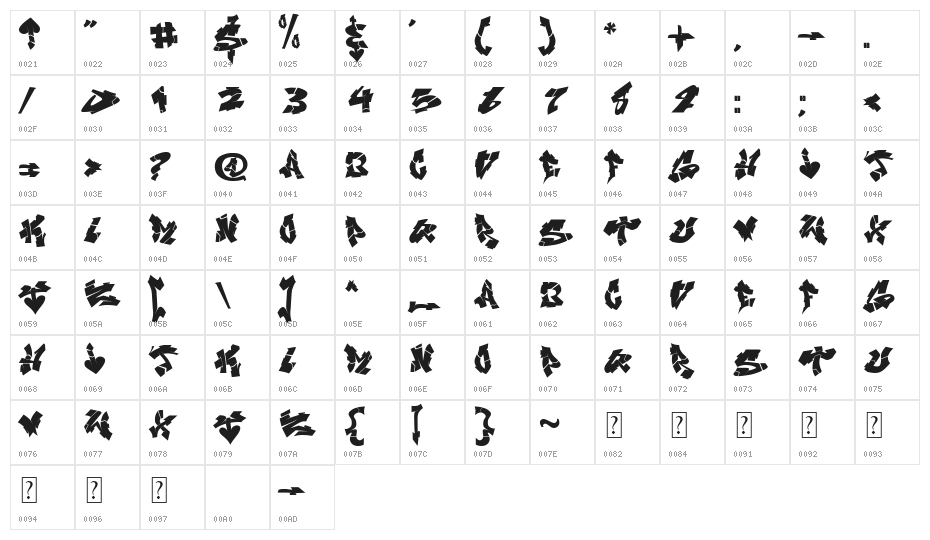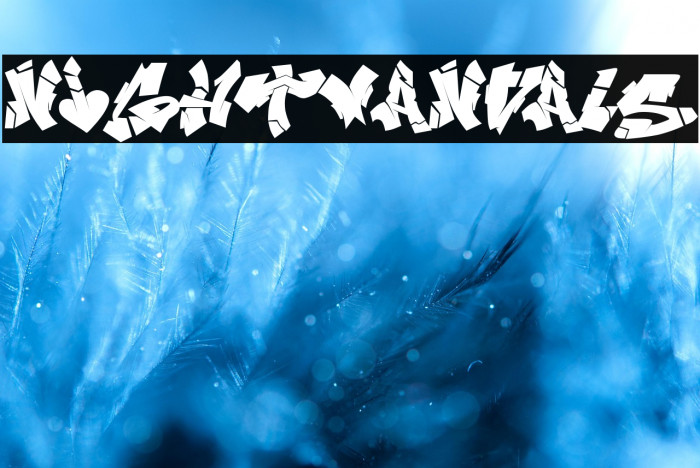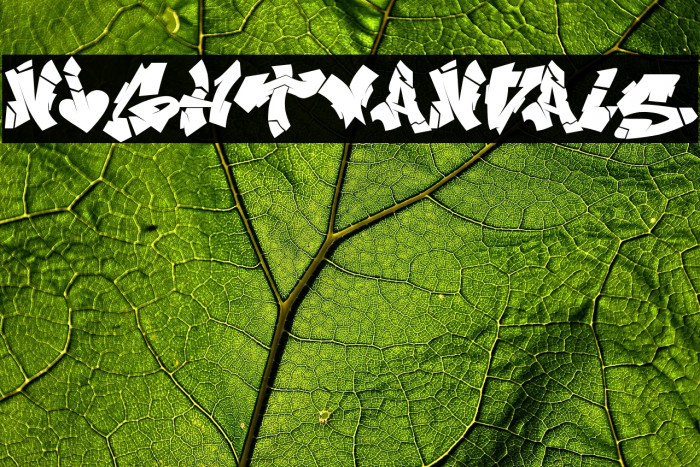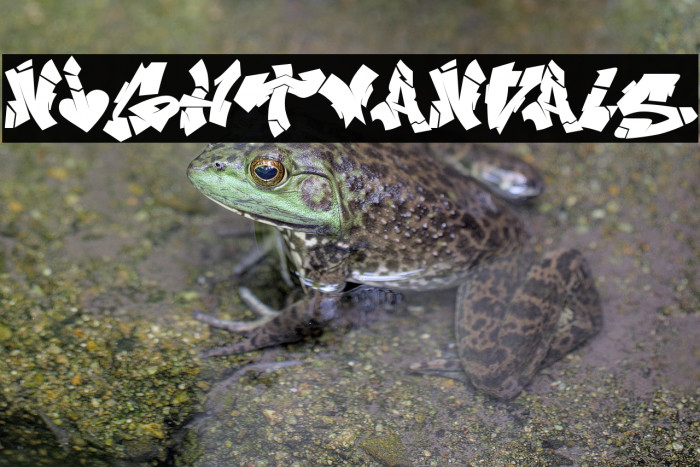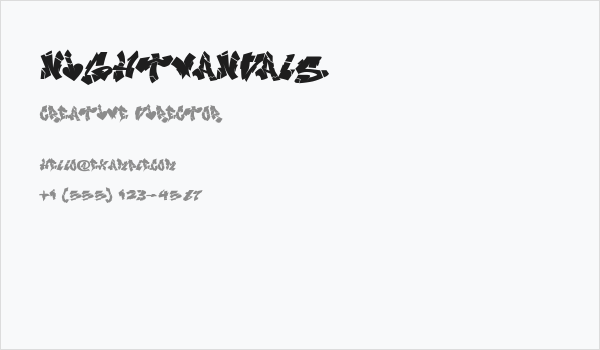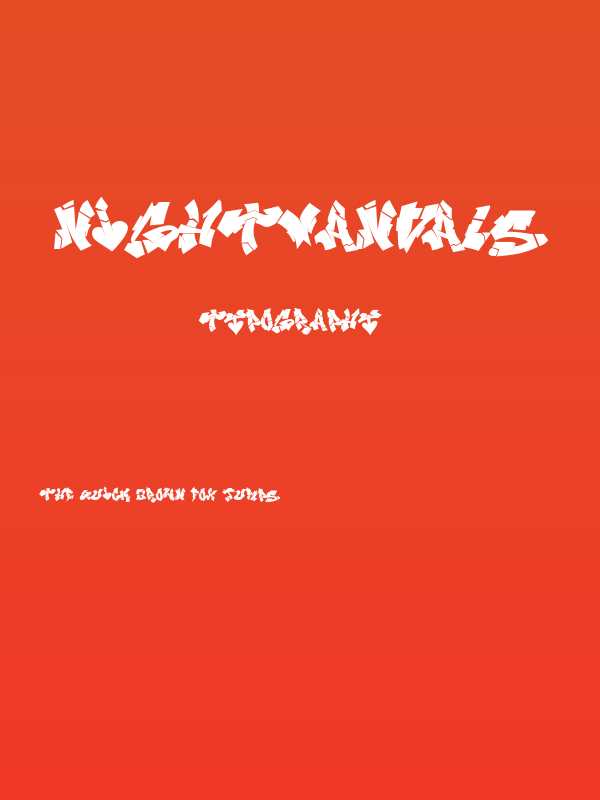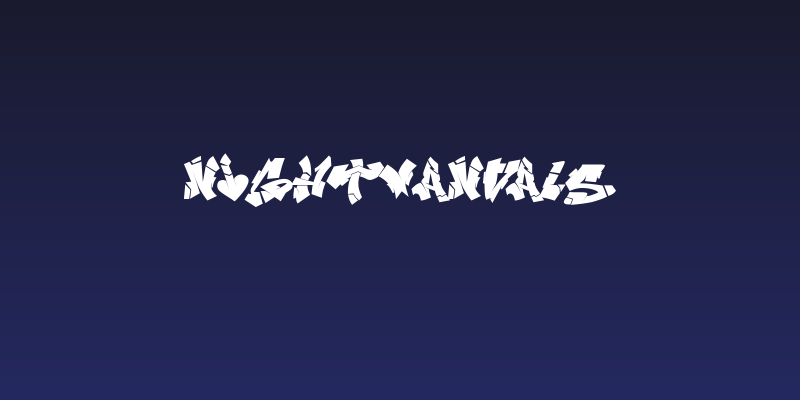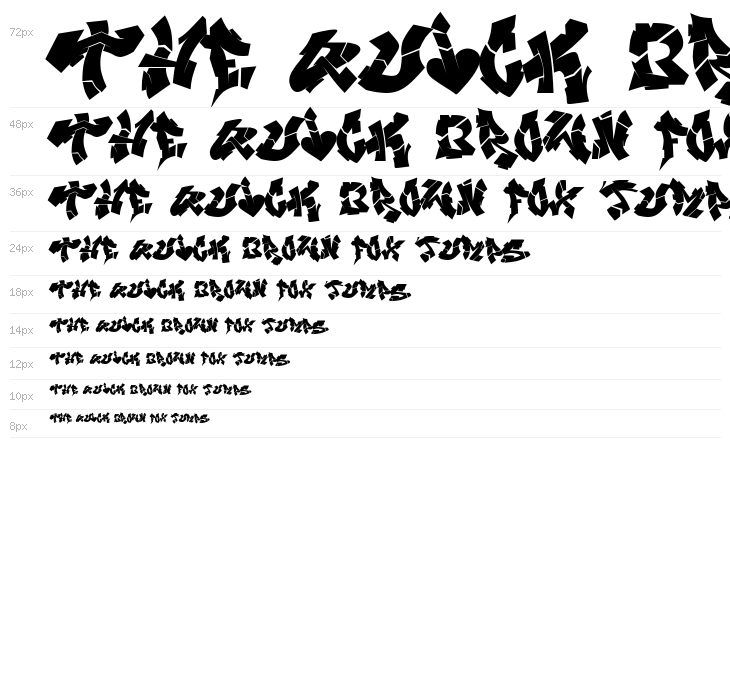
NIghtvandals Font
NIghtvandals Description
This font features a bold, graffiti-inspired style with sharp, angular edges and a dynamic, energetic appearance. The characters are heavily stylized, giving them a fragmented, almost shattered look that adds to the urban and rebellious feel. The uppercase and lowercase letters maintain a consistent aesthetic, with each character appearing as if it has been spray-painted with precision. The numbers and special characters follow the same design principles, ensuring uniformity across the entire set. This font is ideal for projects that aim to capture a sense of street art, youth culture, or edgy modernity.
Overall StyleModern, Urban, Edgy
Proposed ProjectsIdeal for street art designs, urban-themed posters, music album covers, and edgy branding projects.